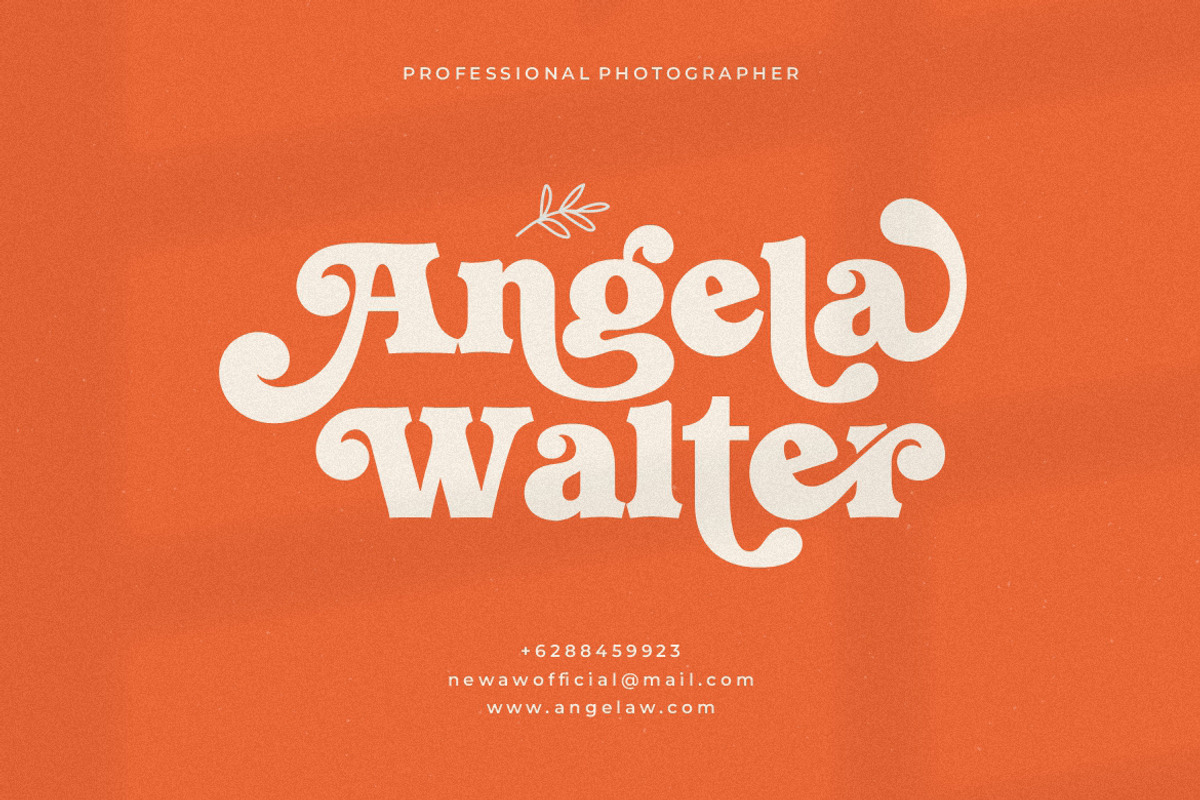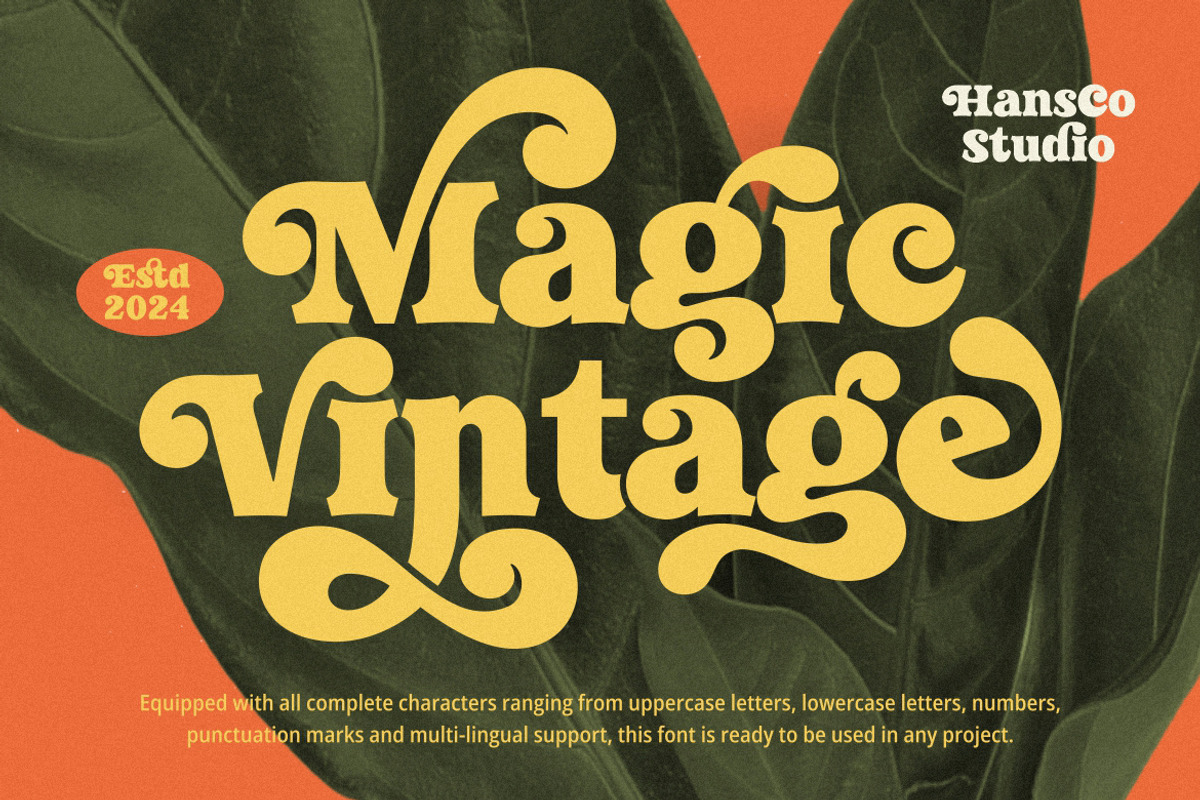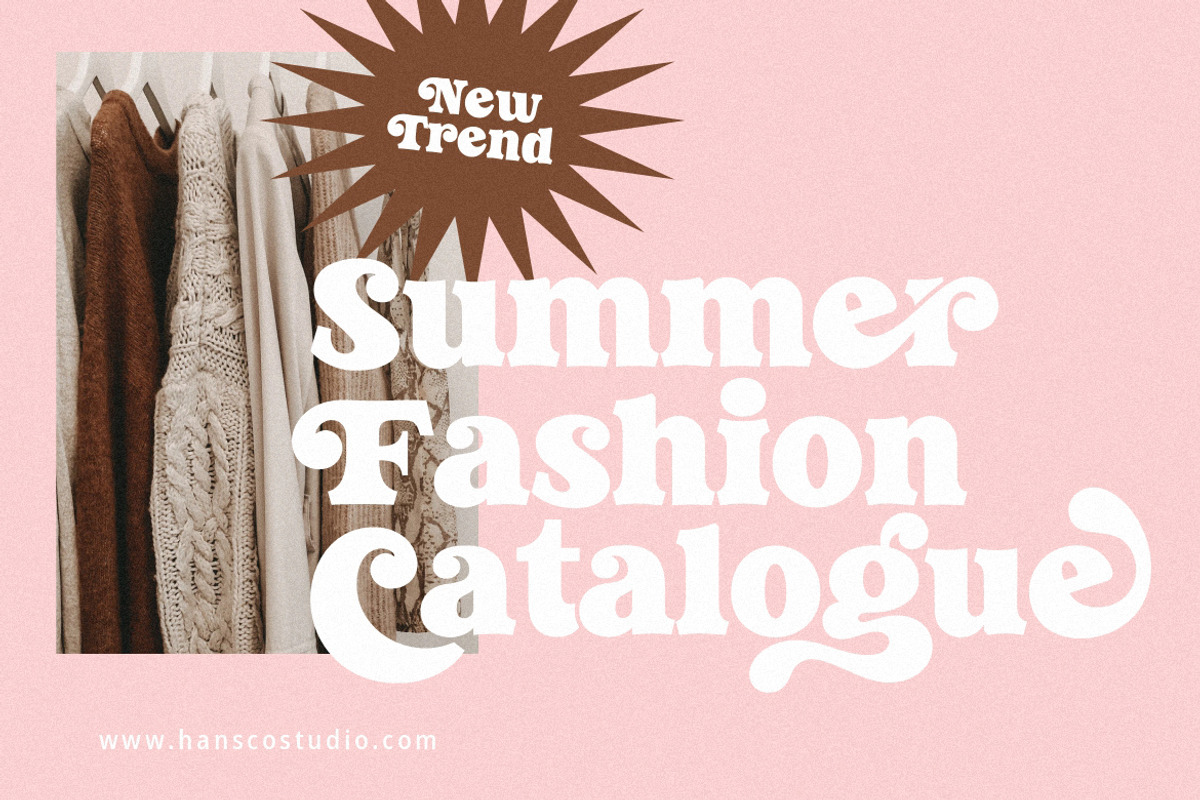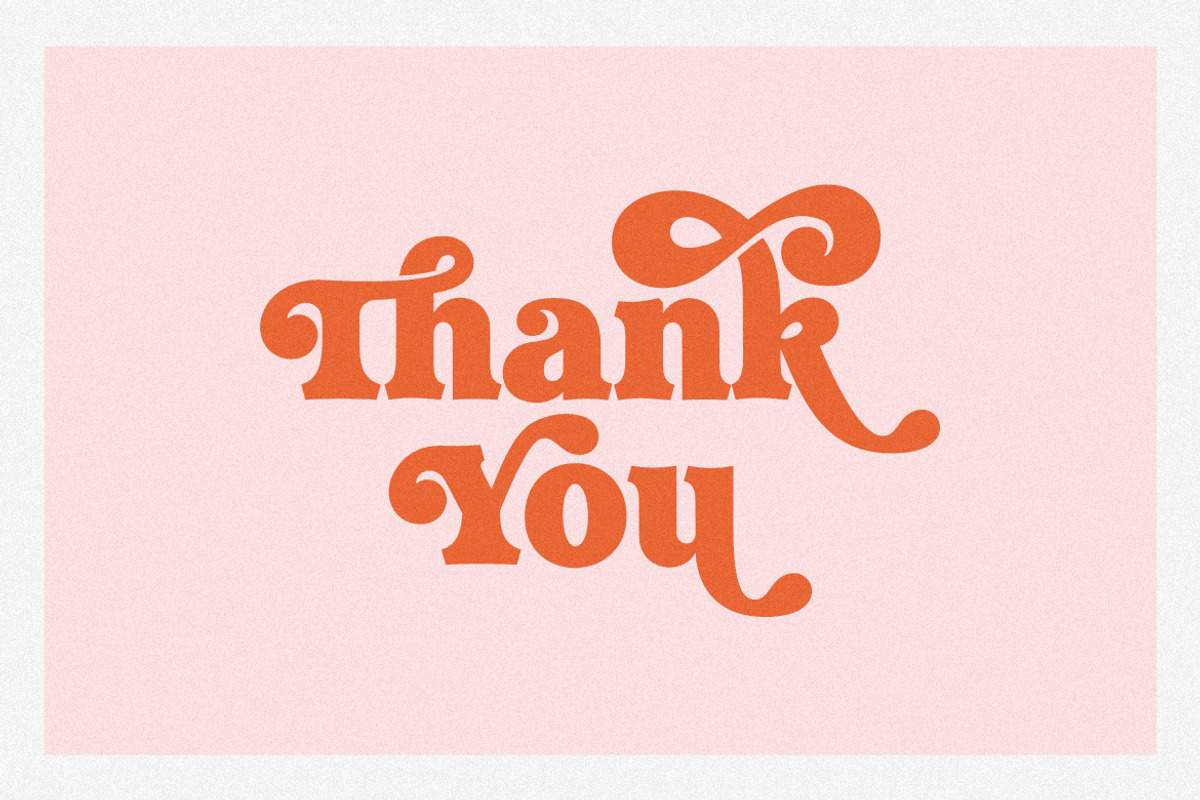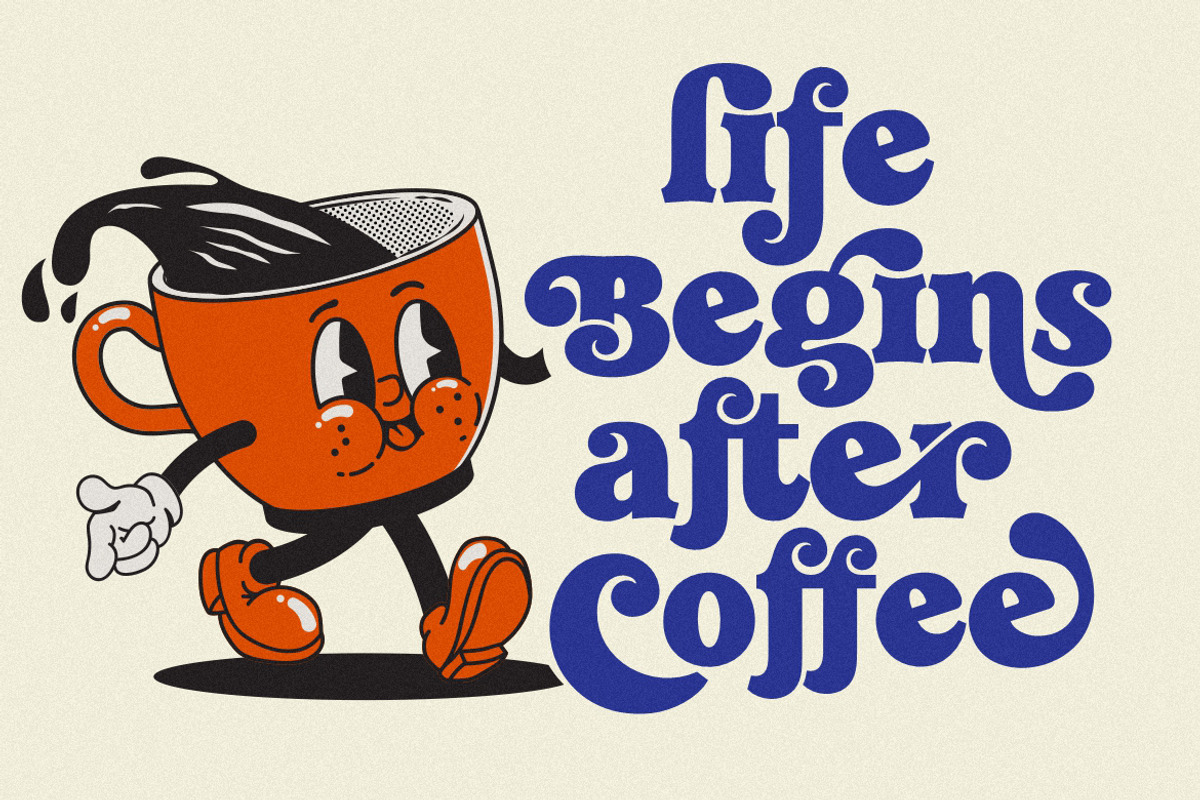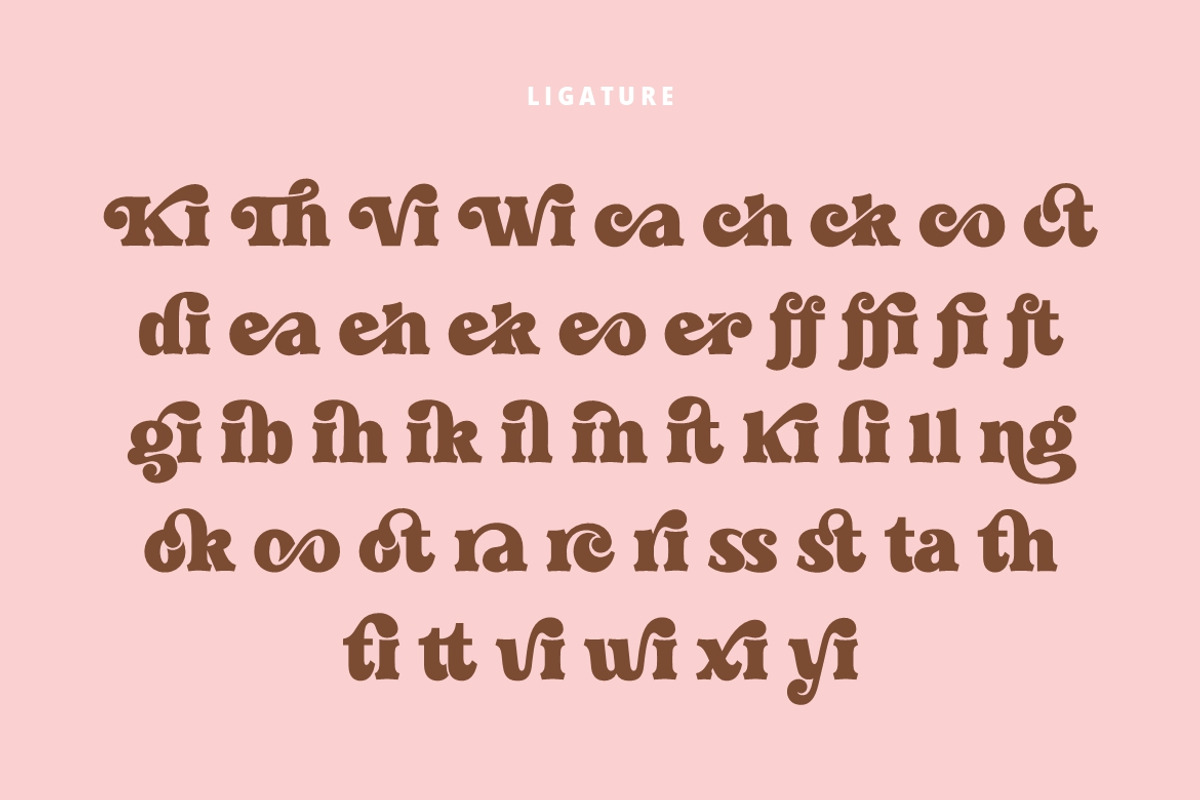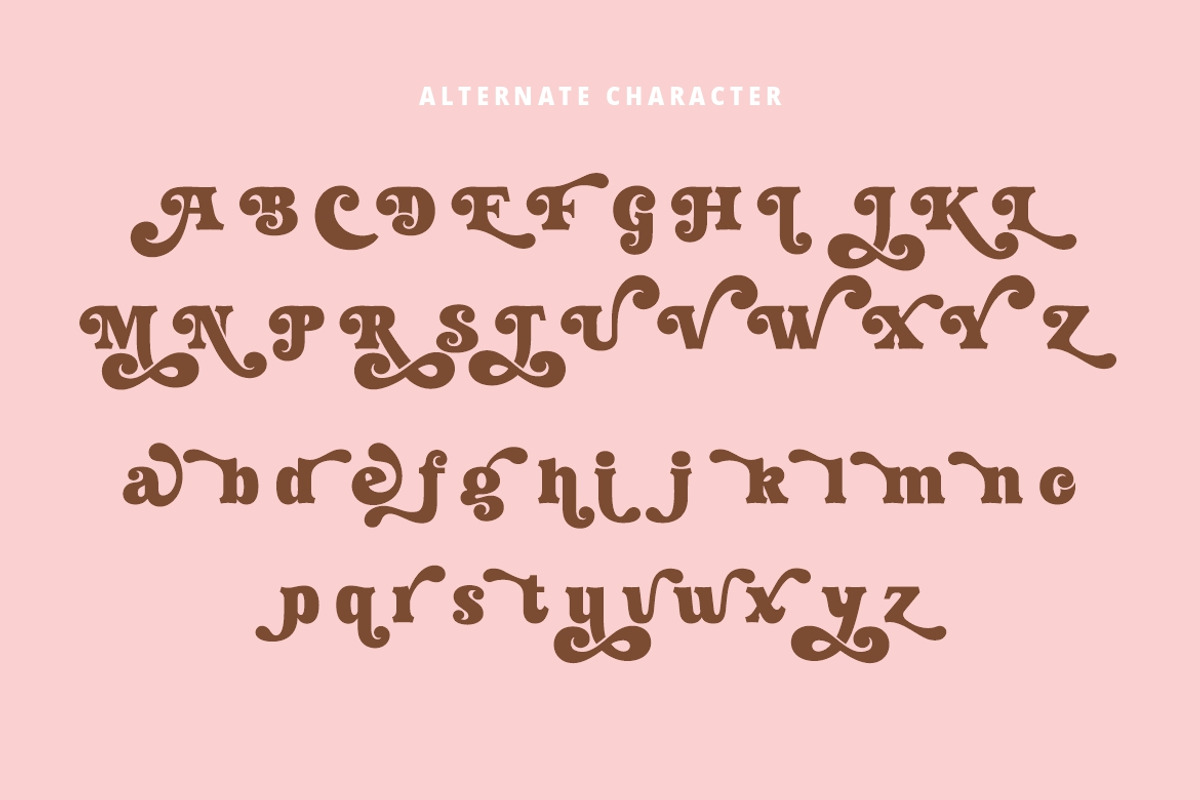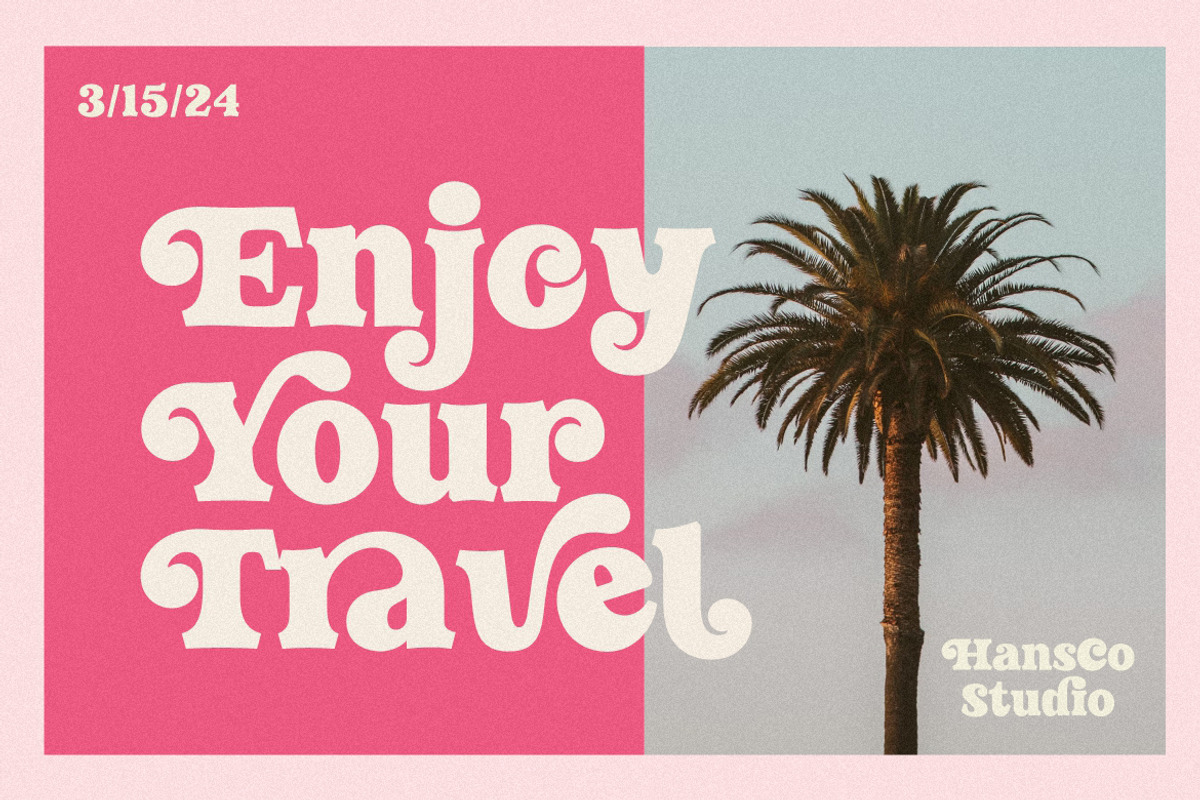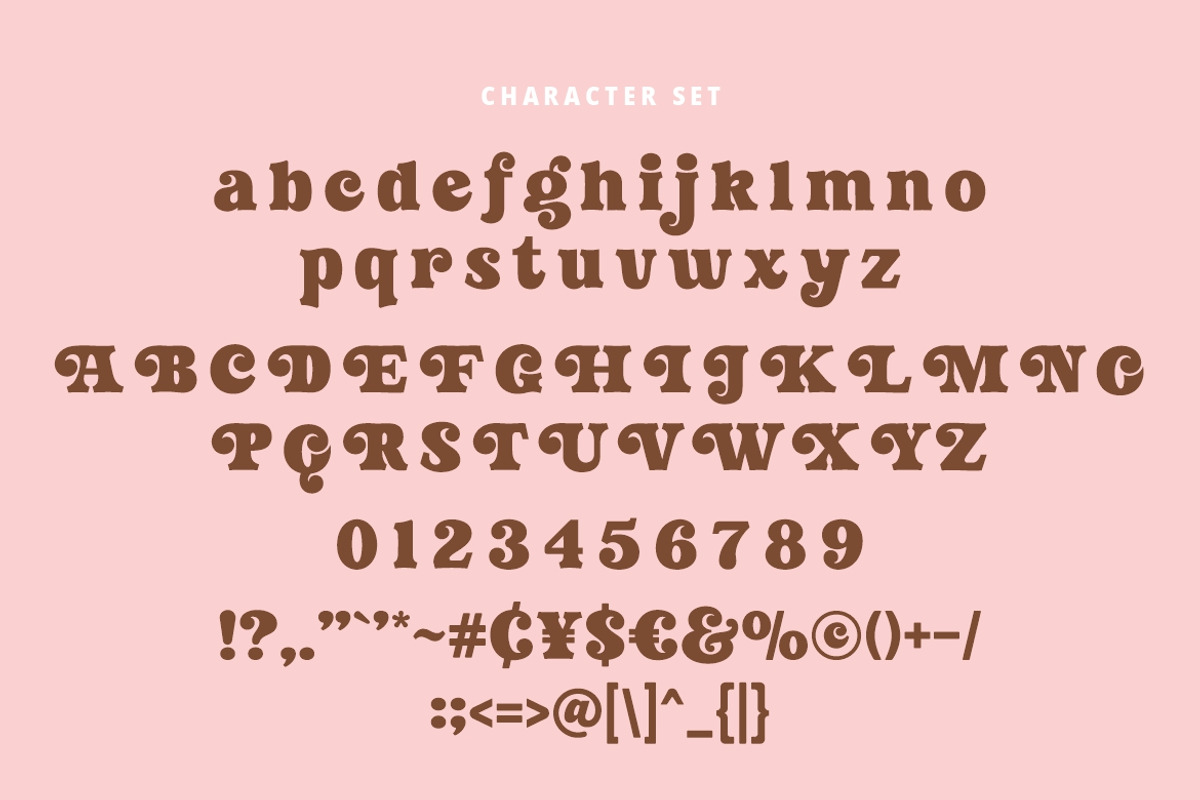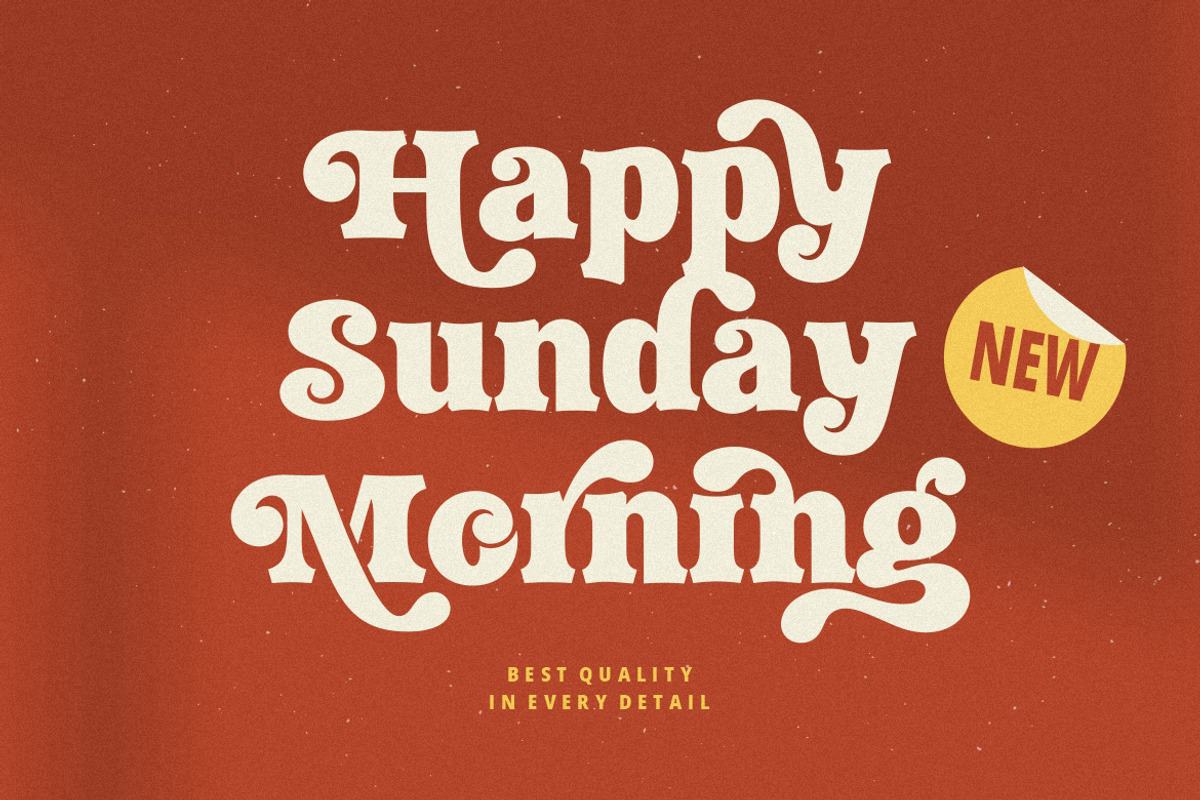
Magic Vintage Font Serif
Magic Vintage Font is a simple & bold retro vintage serif font style. You will also get additional alternative swash character fonts that make your design projects amazing. Use this display font to add that special retro vintage touch to any design idea you can think of!. Equipped with all complete characters ranging from uppercase letters, lowercase letters, numbers, punctuation marks and multi-lingual support, this font is ready to be used in any project. Very suitable for logotype, Stickers, Packaging design, Cricut Project, headlines, brand identity, t shirt or apparel industry, posters, magazines, books, YouTube, Instagram, websites, or any of your creative design projects.